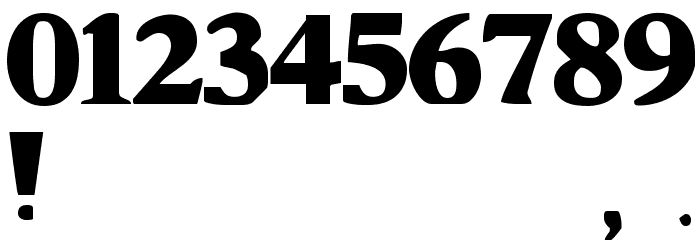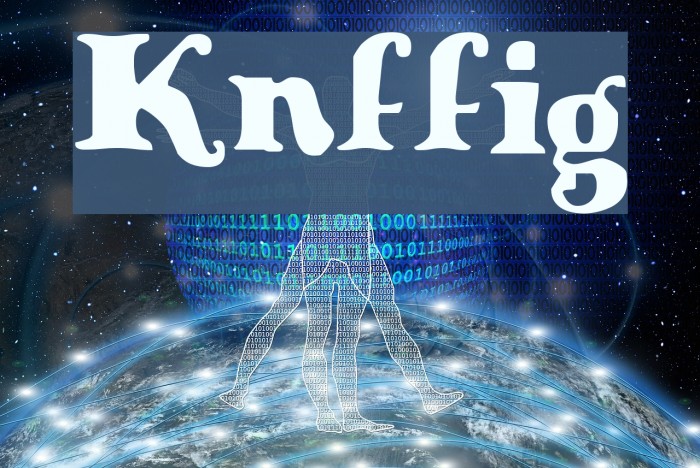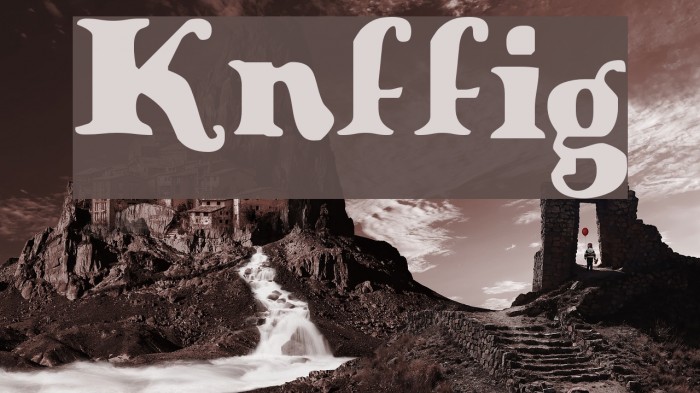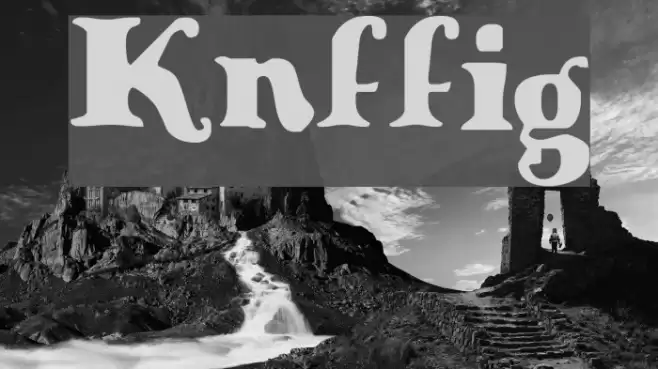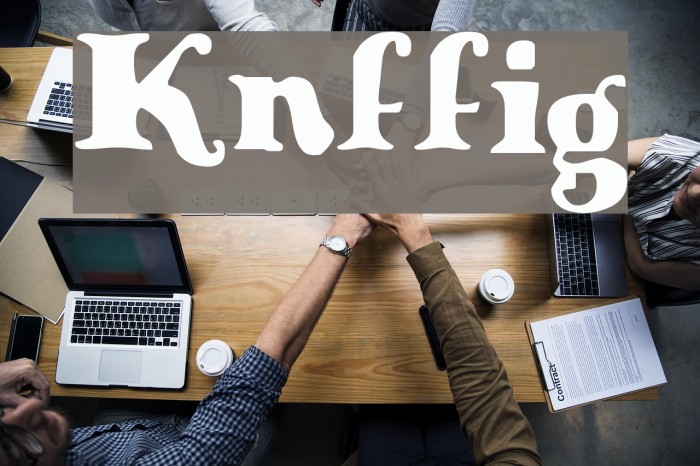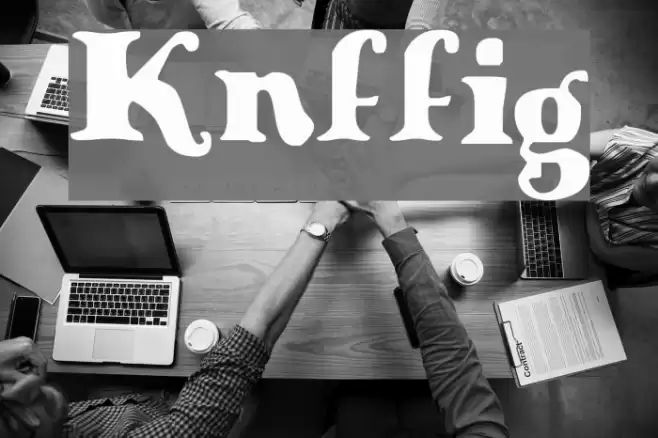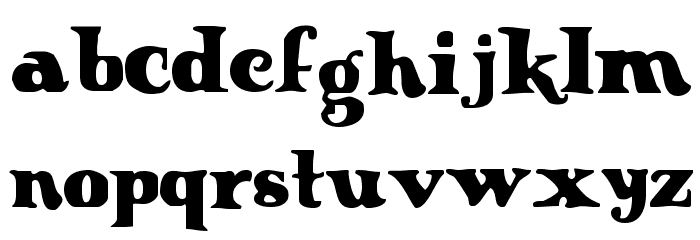
Knuffig Font
Knuffig Description
This font exhibits a playful and whimsical style, characterized by its bold and rounded letterforms. The uppercase letters are particularly distinctive, with exaggerated serifs and a slightly uneven baseline that adds to its quirky charm. The lowercase letters maintain this playful aesthetic, with a consistent stroke weight that ensures readability. Numbers are bold and clear, making them suitable for attention-grabbing displays. The special characters, including punctuation marks, are designed to match the overall playful theme, ensuring a cohesive look across all text elements.
| Overall Style | Playful |
| Proposed Projects | Ideal for children's books, playful branding, party invitations, and creative posters. |